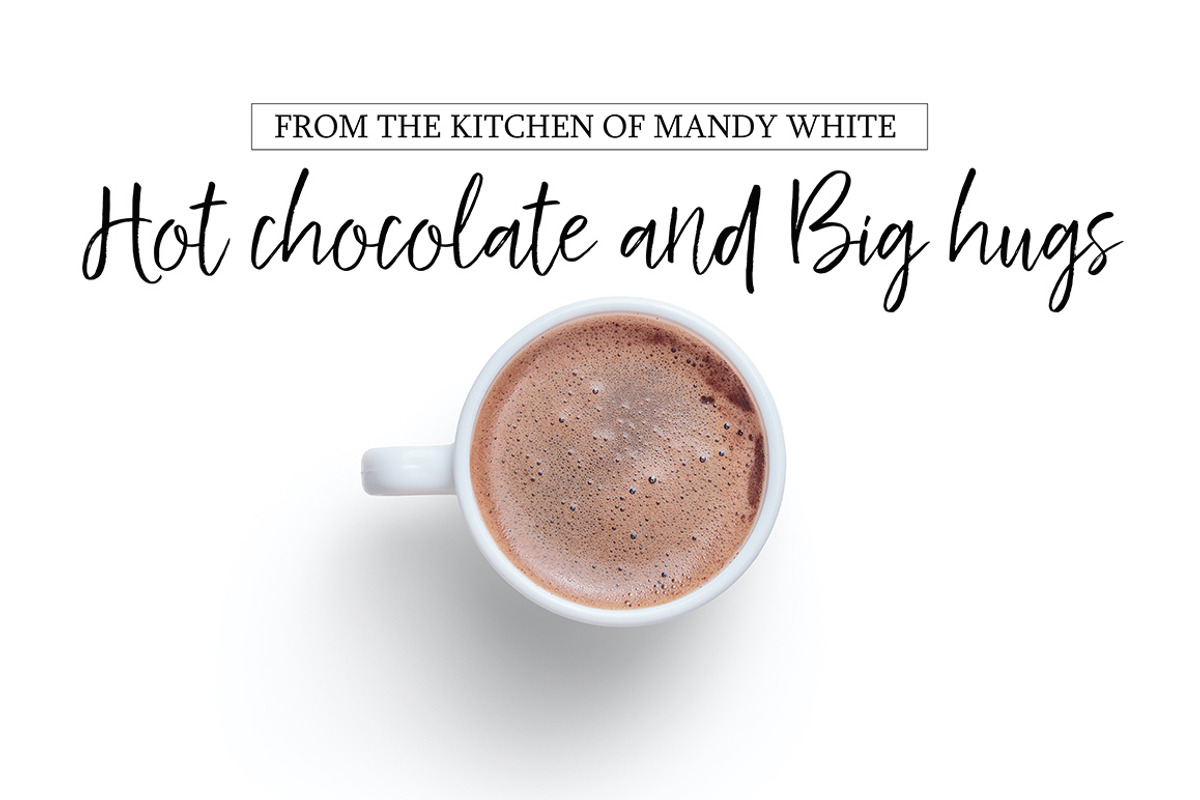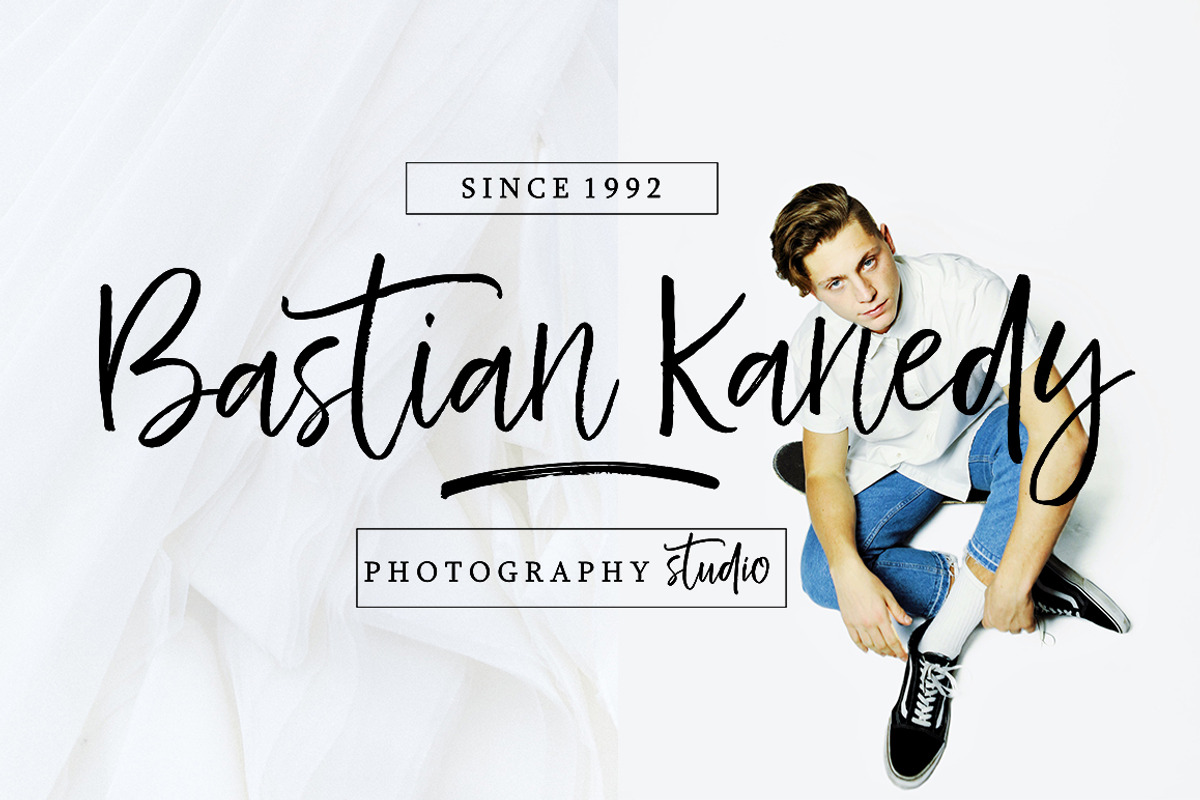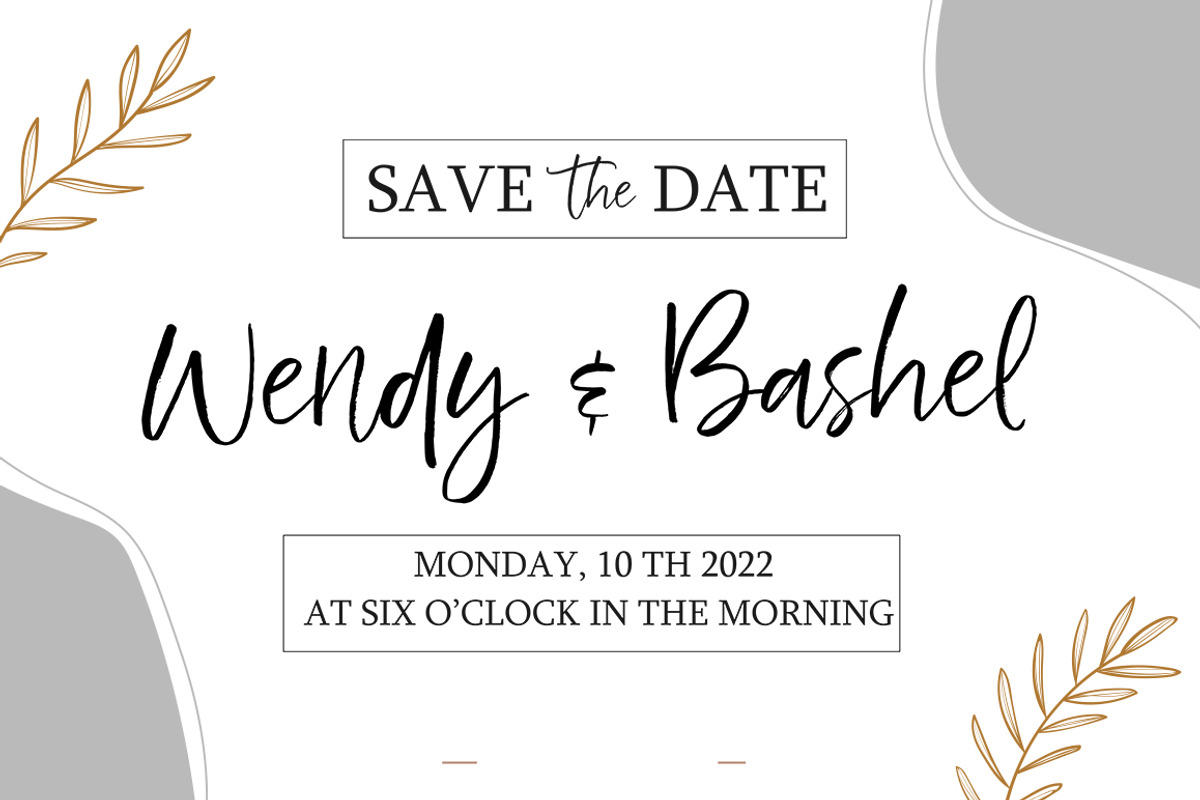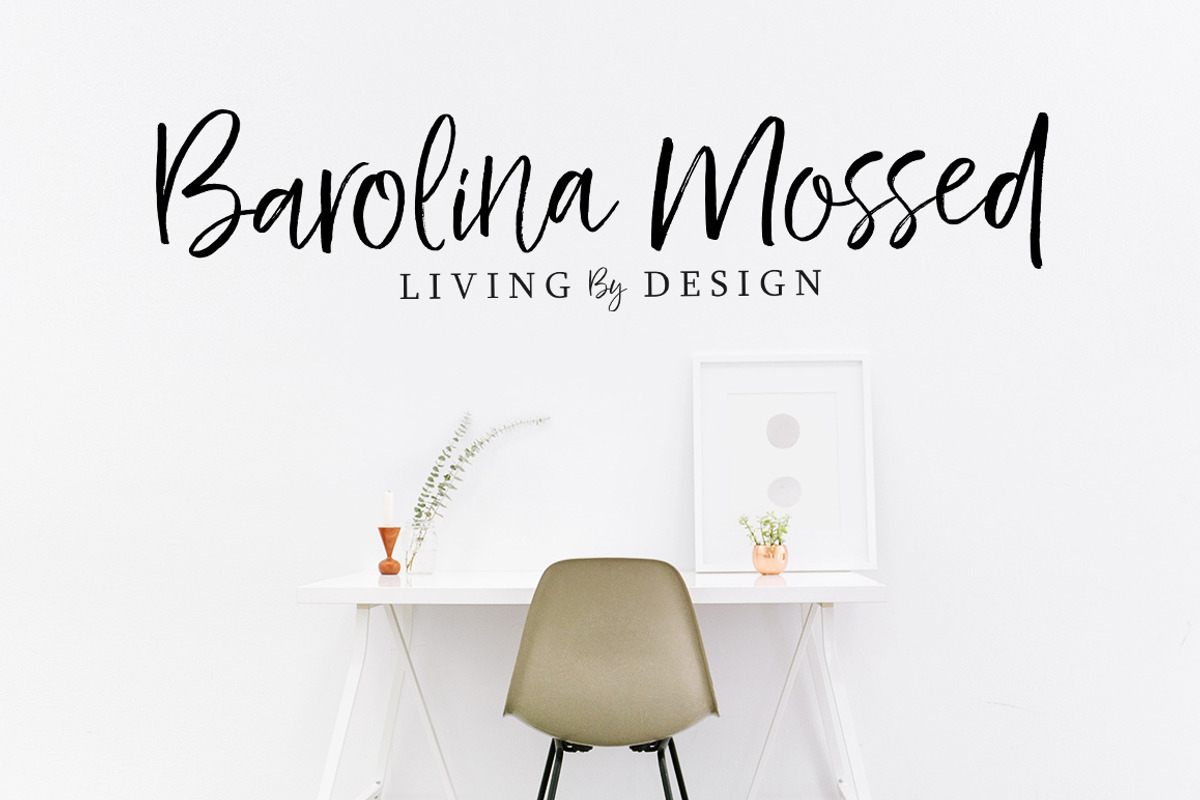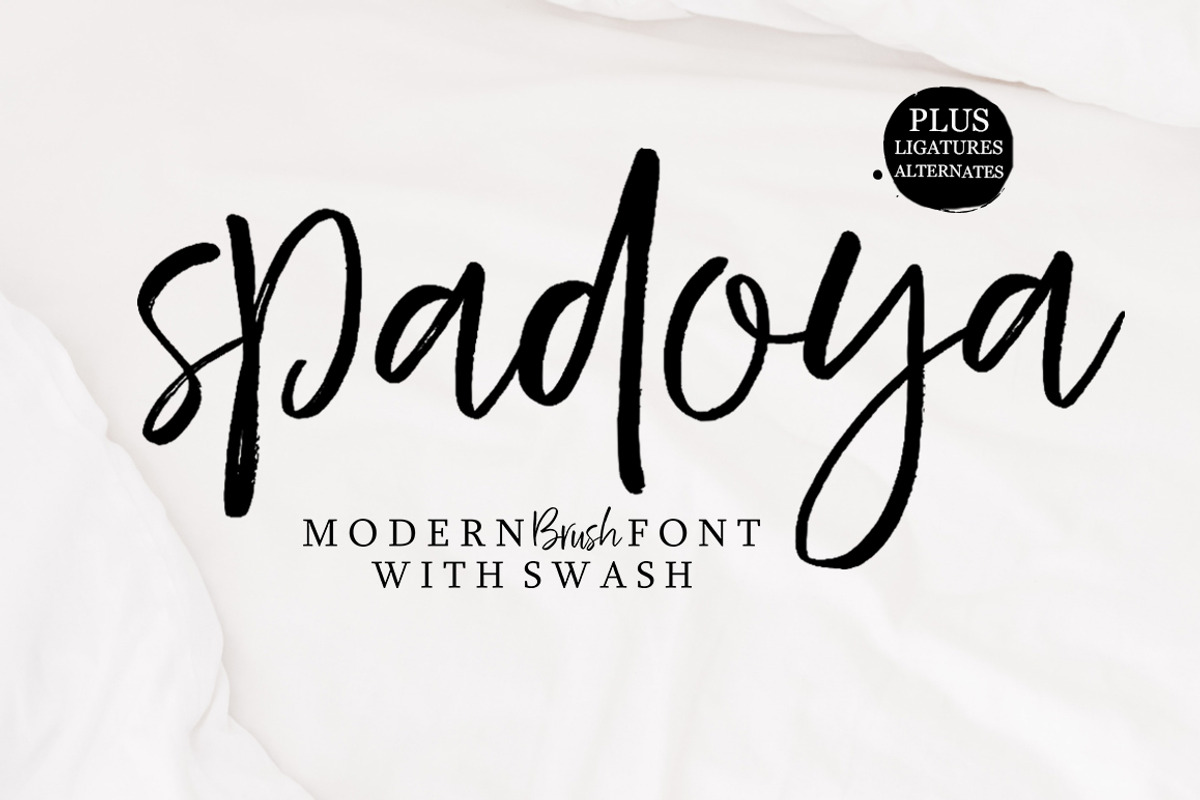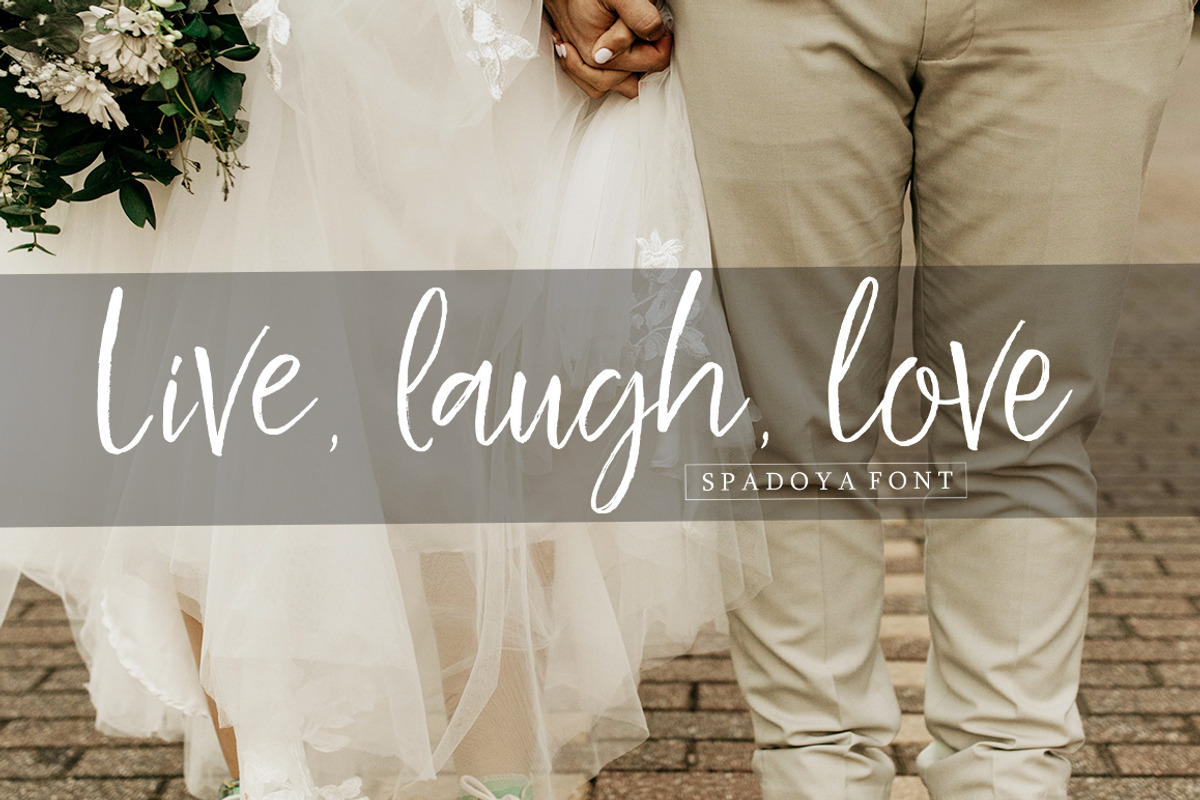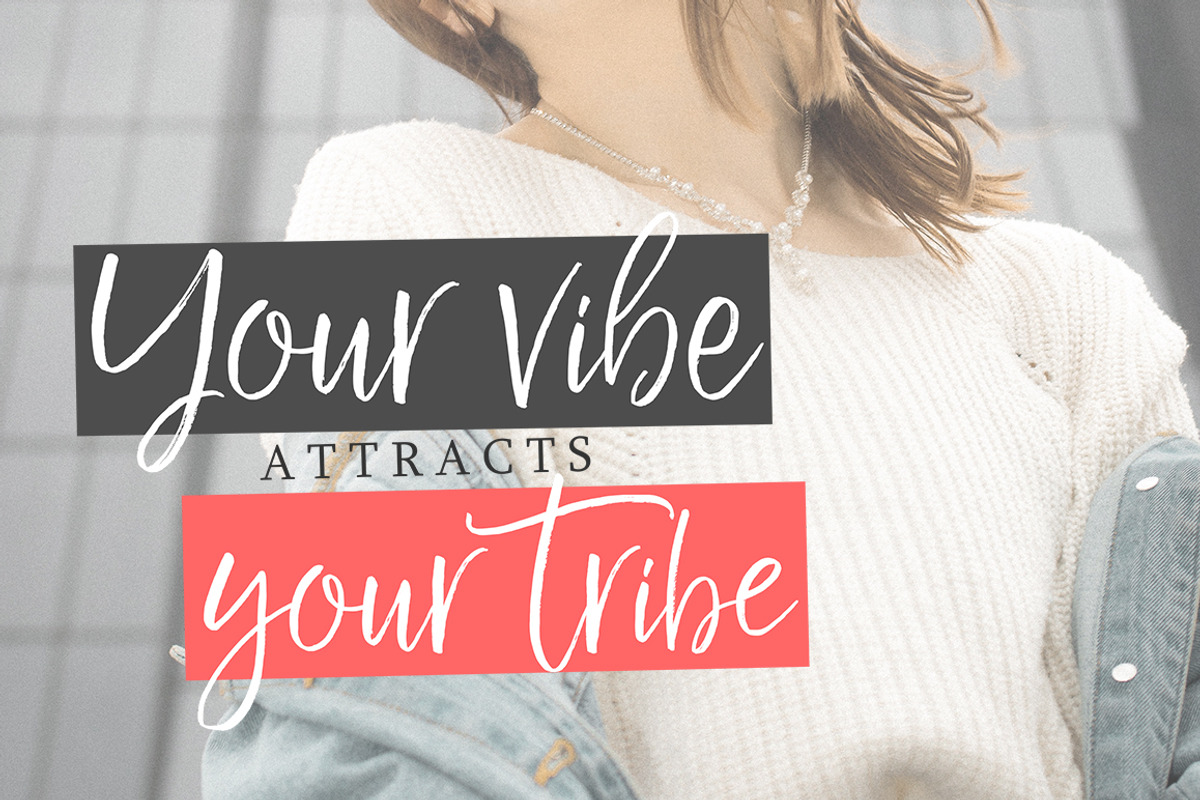
Spadoya
Spadoya is a hand brushed font made with brush and ink. This typeface is ideal for use in bold watercolor designs or handwritten styles, such as blog titles, posters, wedding elements, t-shirts, clothing, book covers, business cards, greeting cards, branding, merchandise, etc.
And also Spadoya and swash, working in sync with Spadoya Regular to create incredible typographic creations. Get inspired by the preview above.